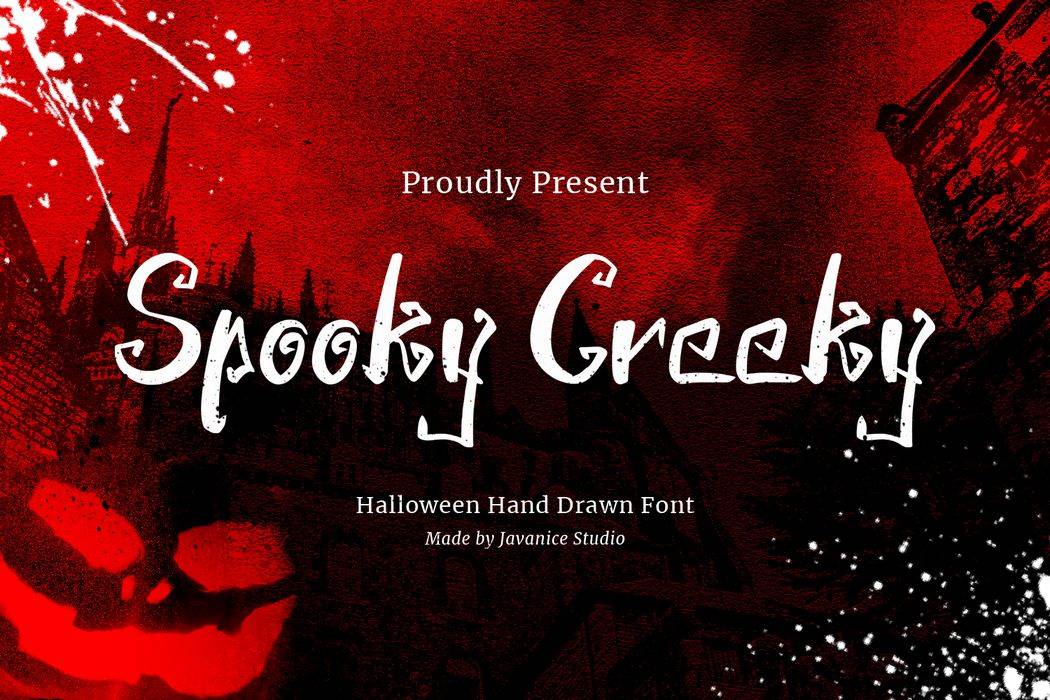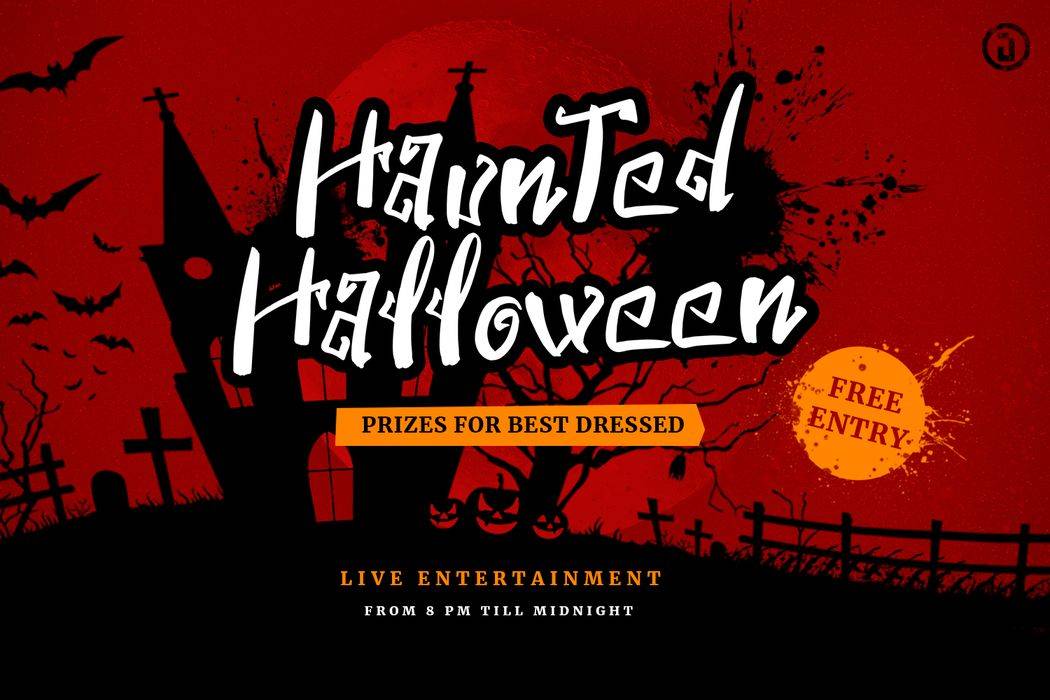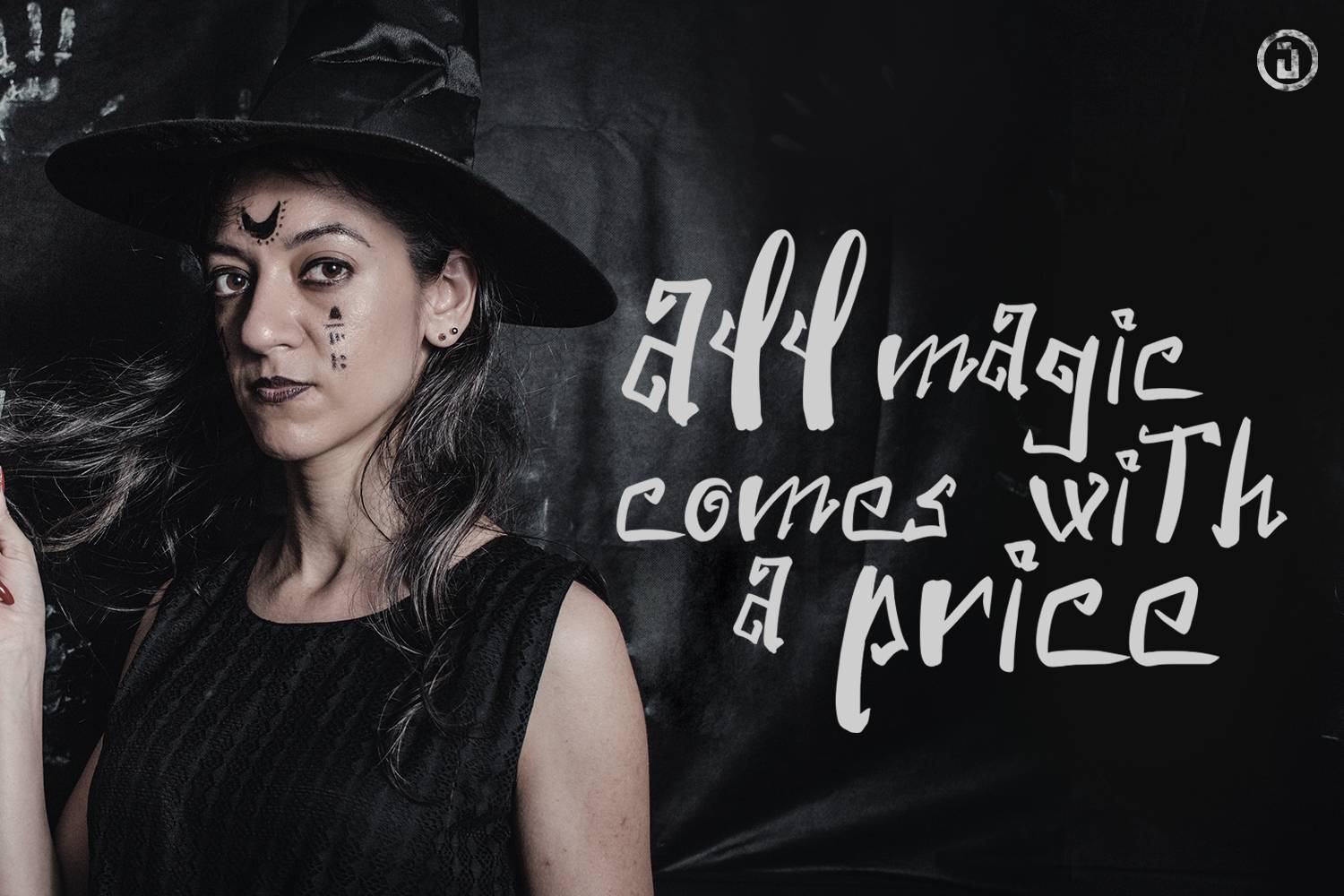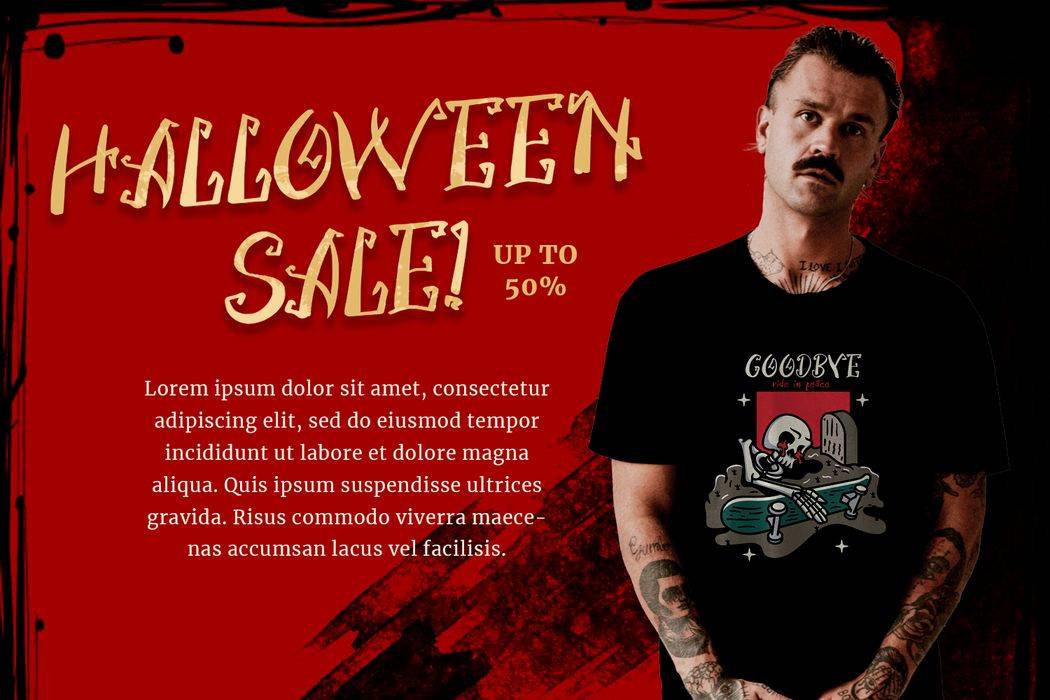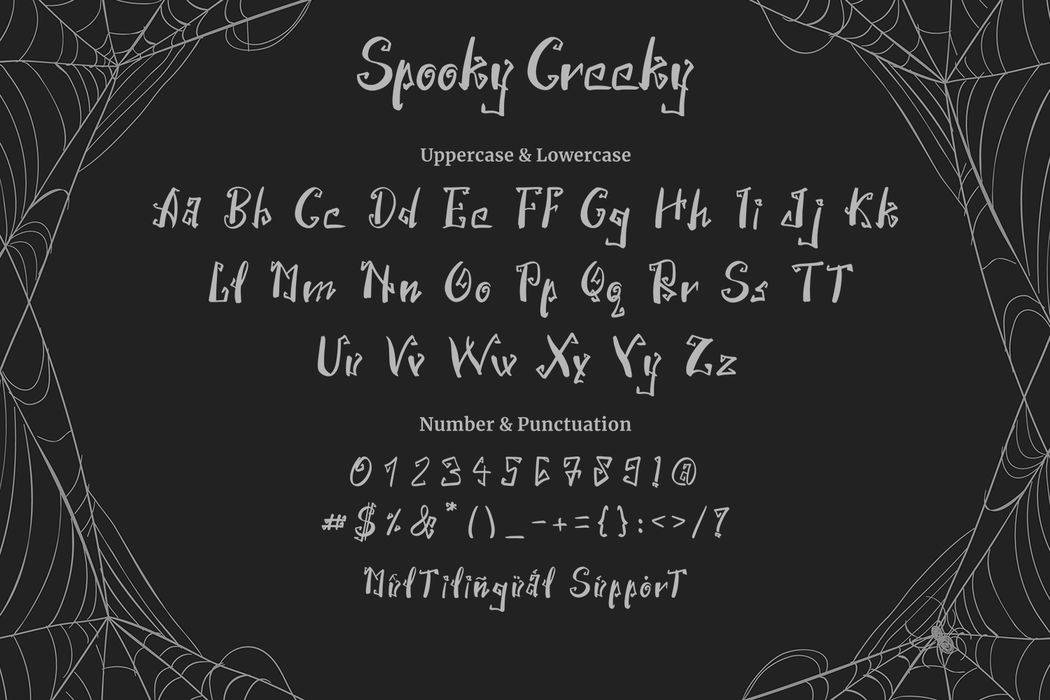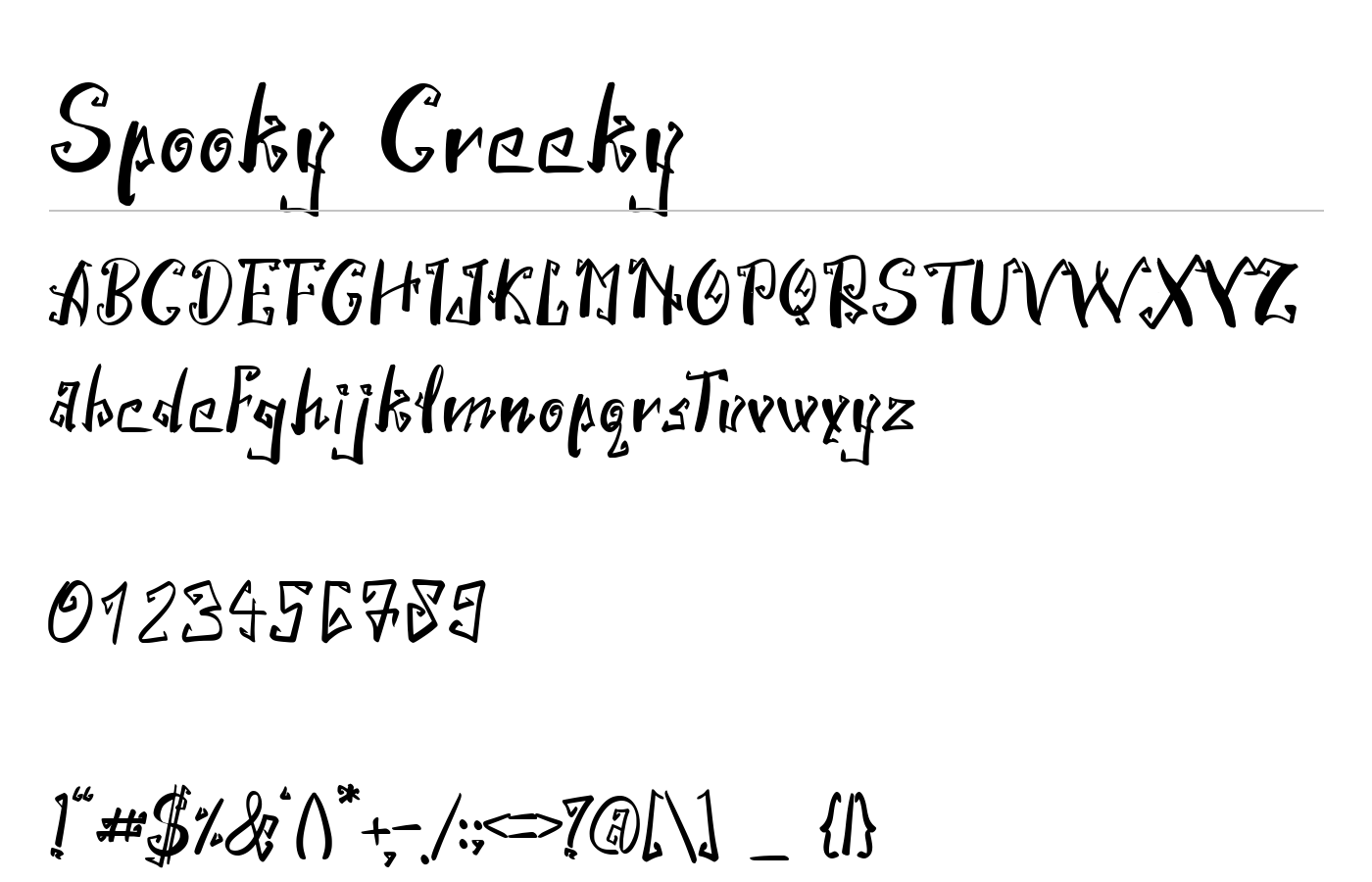
Spooky Creeky is a quirky, hand-drawn serif font with a twisted, eerie style perfect for Halloween or spooky-themed designs. Its uneven stroke widths and decorative, jagged serifs create a playful yet mysterious atmosphere, making it ideal for posters, party invites, or branding that seeks a fun, creepy vibe. This font’s distinctive letterforms add character and personality, capturing attention in headlines and decorative uses.